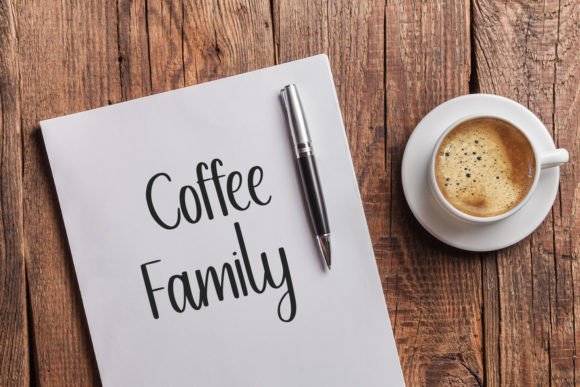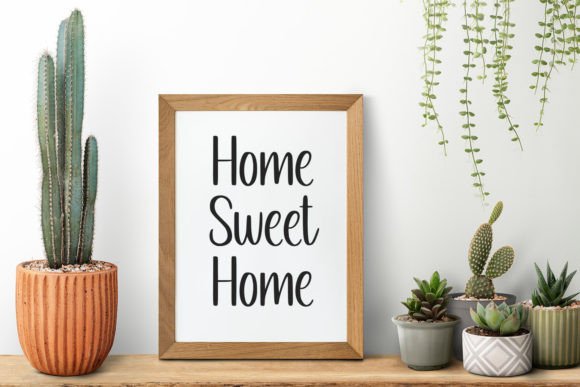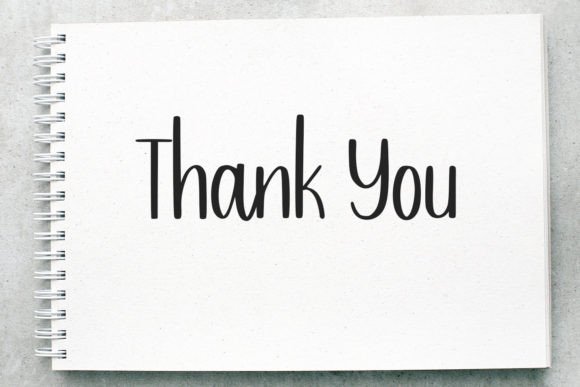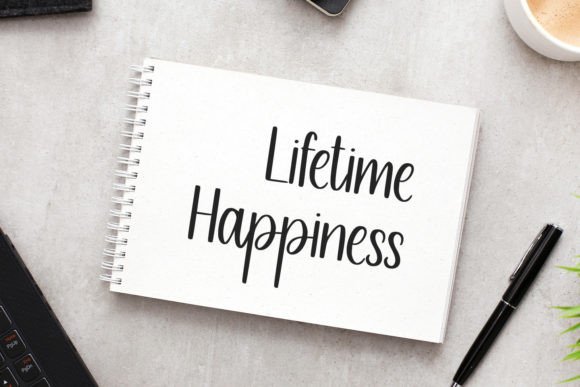
The Saturday font is a simple and natural handwriting font that brings a modest yet stylish touch to your design projects. This font is ideal for branding, quotes, logos, t-shirt designs, tote bags, greeting cards, banners, social media posts, and many more creative uses.
With its clean and effortless style, the Saturday font adds personality and warmth to any project. Whether you are crafting a logo or designing eye-catching social media graphics, this font’s handwritten charm makes your work stand out.
By downloading the Saturdayfont, you’ll gain a versatile handwriting font that works beautifully across different mediums and products. Its simple, natural style is perfect for those seeking authenticity and elegance in their designs.
In summary, the Saturdayfont is an excellent choice to add a modest and natural handwriting style to your creative projects. Download it today and bring your ideas to life with genuine style!